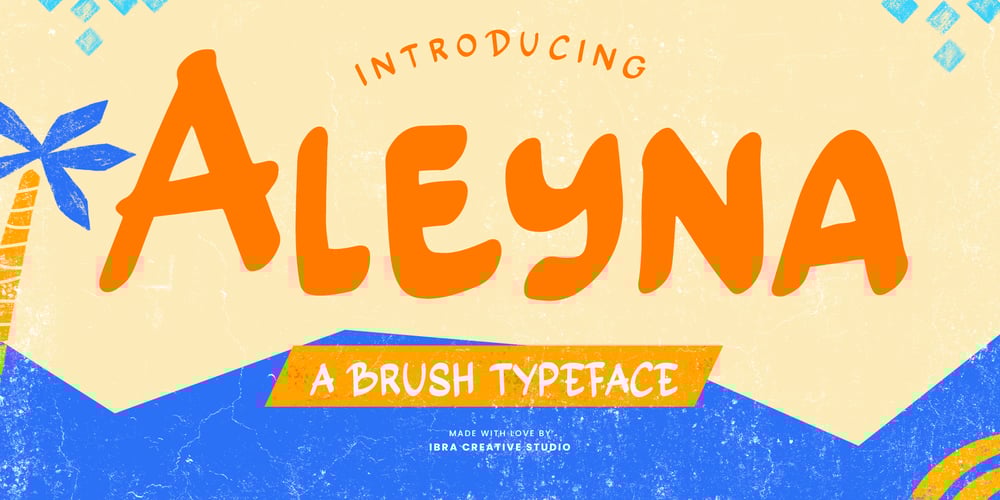
Aleyna Font Family was designed by Roisatul Azizah and published by IbraCreative. Aleyna contains 1 styles and family package options. Aleyna – A Brush TypefaceAleyna, a brush typeface, dances across the canvas of design with expressive strokes and dynamic flair. The bold and fluid letterforms capture the essence of hand-painted artistry, evoking a sense of spontaneity and creativity. Aleyna’s brush strokes carry an energetic rhythm, creating a visual symphony that brings a lively and authentic touch to any project. Whether used for vibrant headlines or artistic branding, Aleyna’s organic and free-flowing design adds a distinctive and captivating charm, making it a versatile choice for those seeking to infuse their creations with a touch of bold, brushstroke-inspired personality. Aleyna is perfect for branding projects, logo, wedding designs, social media posts, advertisements, product packaging, product designs, label, photography, watermark, invitation, stationery, game, fashion and any projects.Fonts include multilingual support for; Afrikaans, Albanian, Czech, Danish, Dutch, English, Estonian, Finnish, French, German, Hungarian, Italian, Latvian, Lithuanian, Norwegian, Polish, Portuguese, Slovak, Slovenian, Spanish, Swedish.